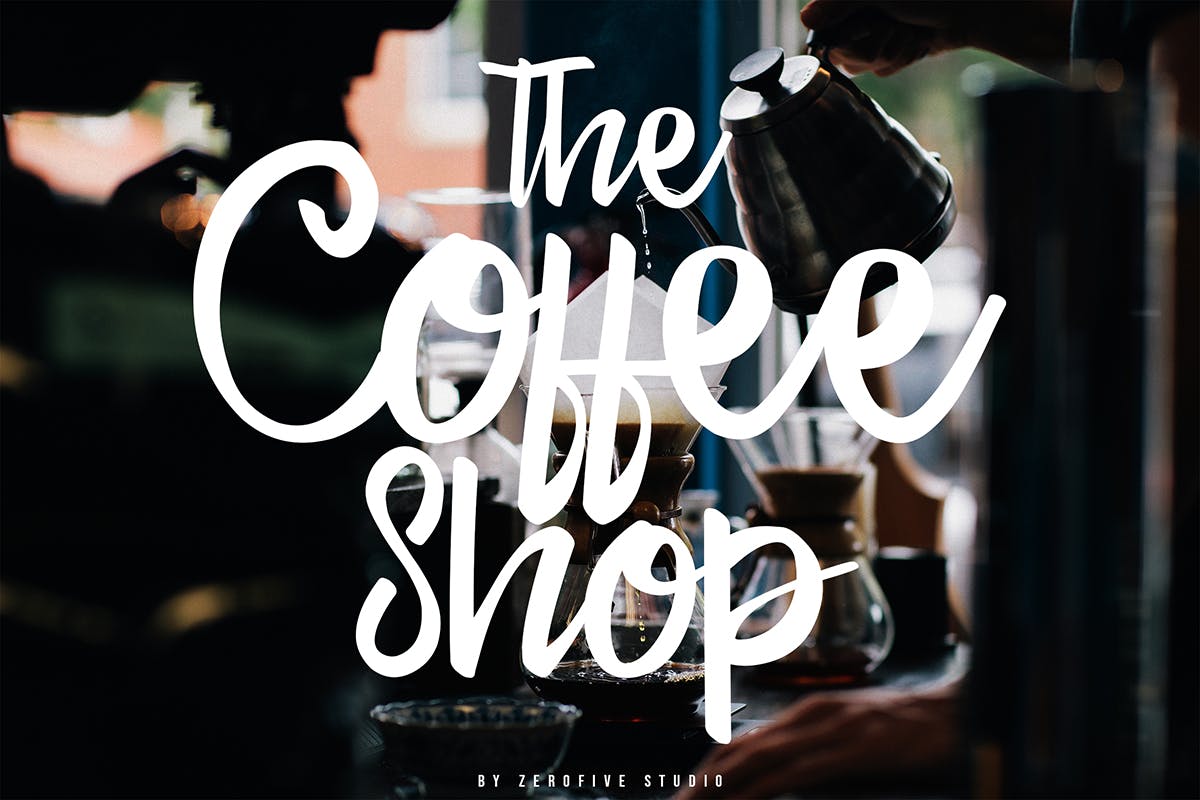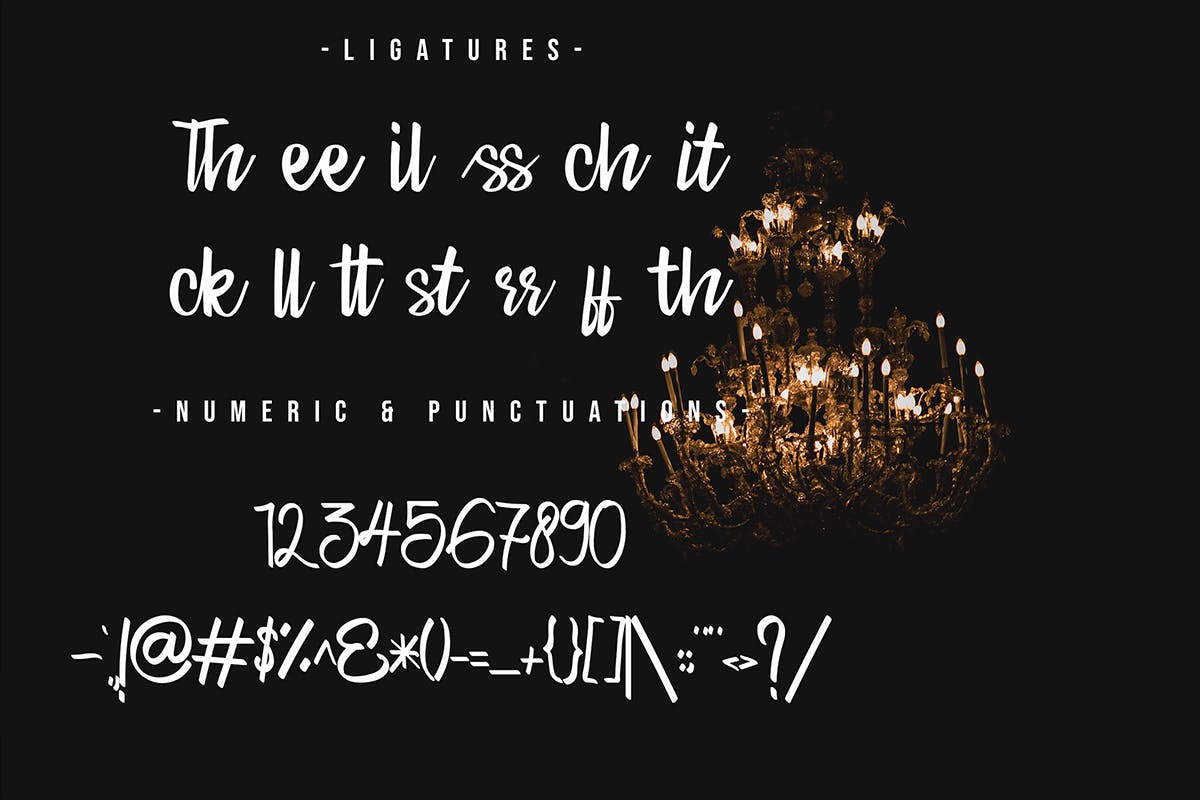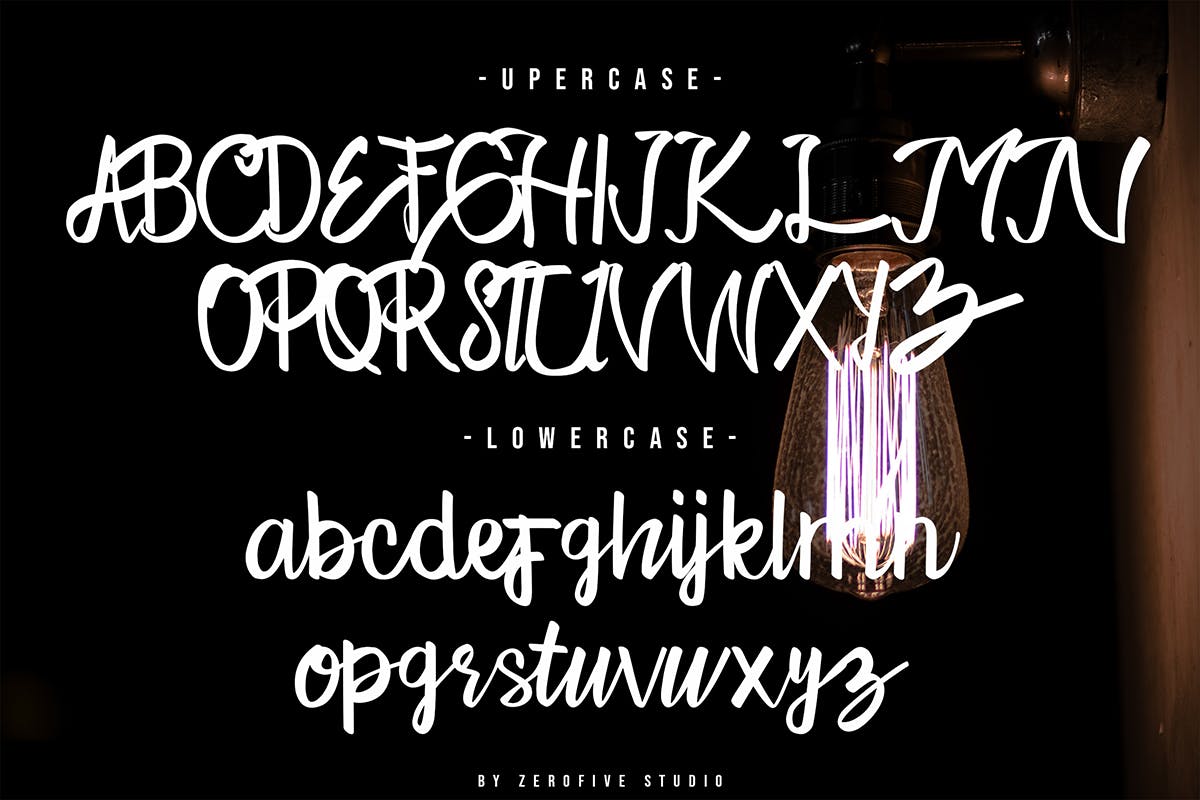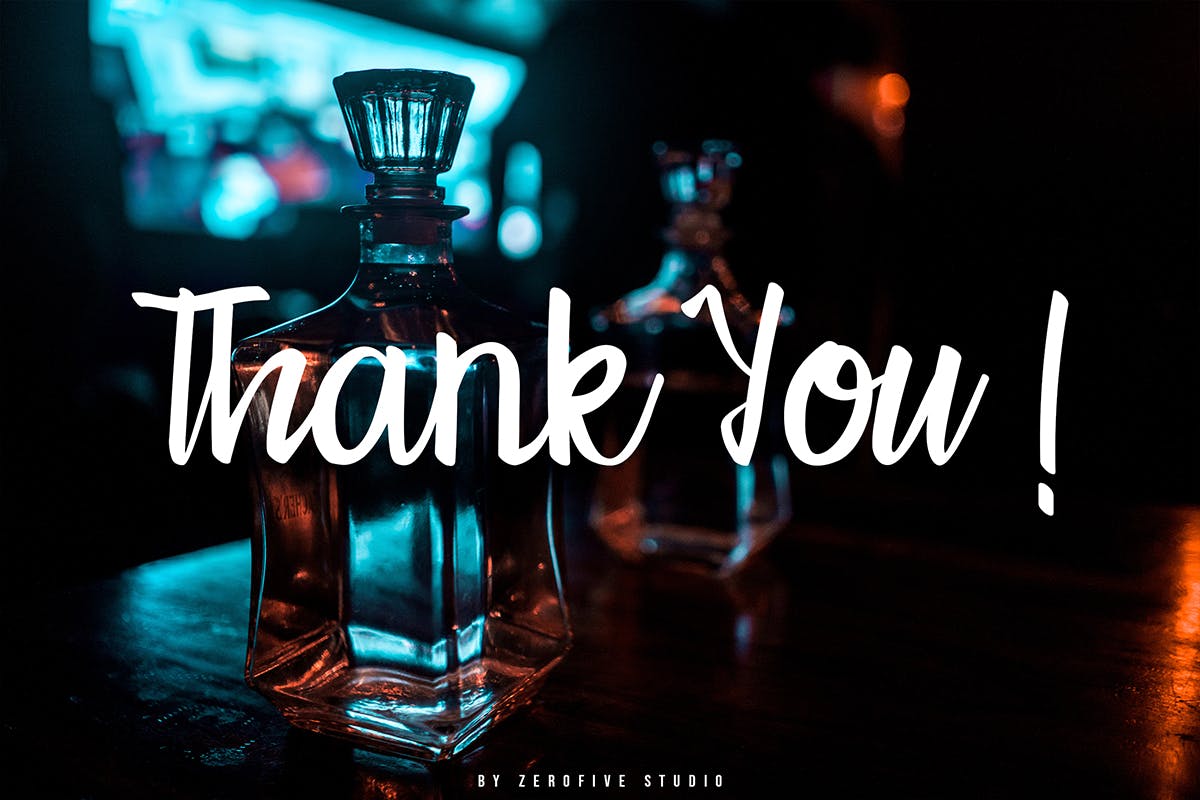
The Quietty Free Script Font
The Quietty Free Script Font is an awesome script font, it makes your design look more professional. This awesome font is useful for wedding invitation, gift card, postcard, video introduction, logo, branding, and more. However, this font is a personal use license, hence you cannot use this free font on a commercial project such as client project and design product.